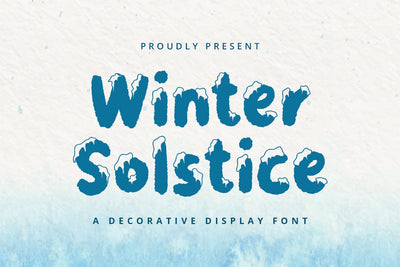
Winter Solstice - Display Font
Winter Solstice is a decorative display font with cute and modern style. It will be perfectly used for Branding, Logo Design, Lettering, Logotype, Clothing, Poster, magazine, packaging, posters, shopping bags, t-shirts, book covers, photography, special events and other design project.